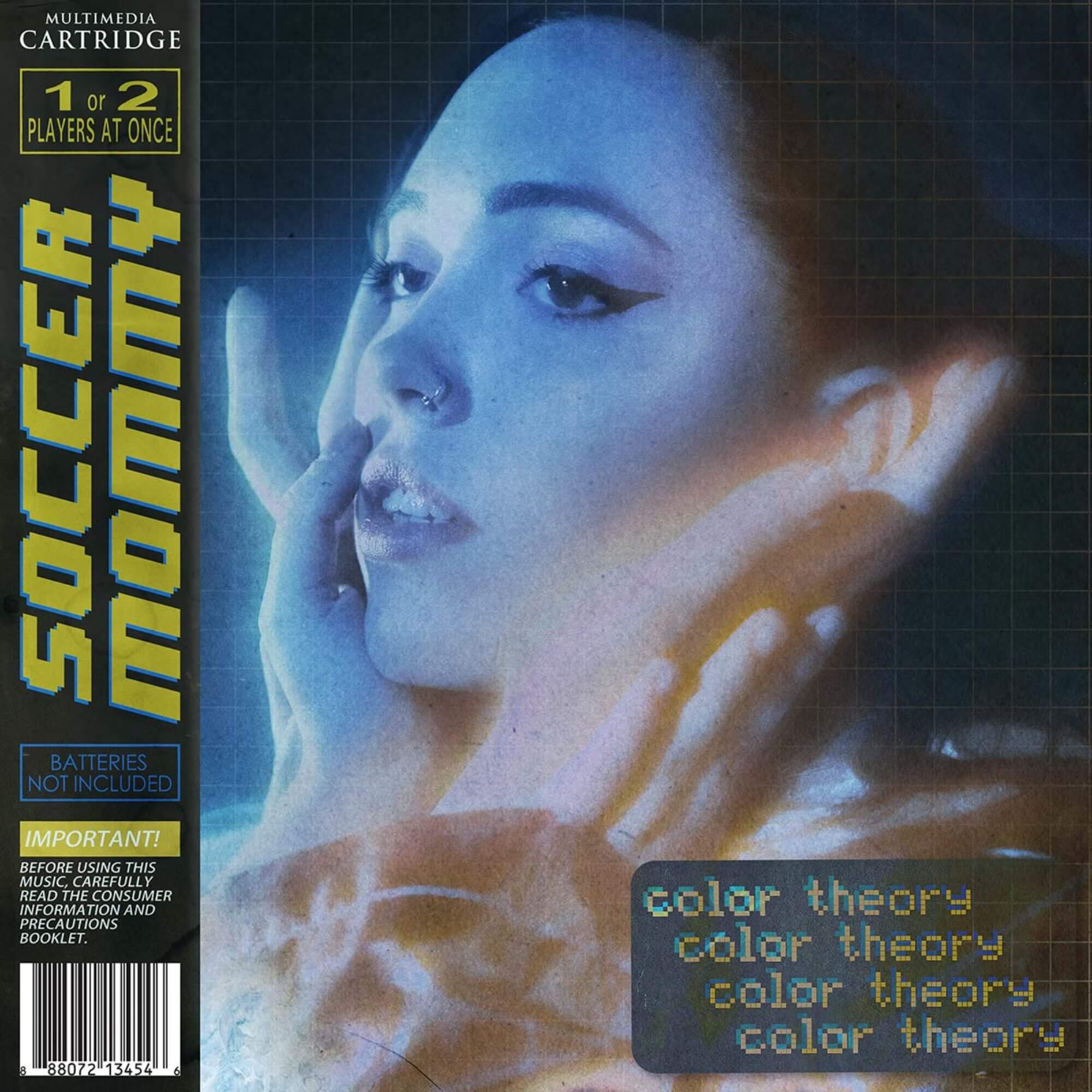
Color Theory Font
Fonts in UseColor Theory is the second studio album by the American indie rock musician Soccer Mommy, released in 2020. The album is a concept record that explores themes of depression, anxiety, and loss through a color-coded structure.
The album title "Color theory" which is shown in a repetitive manner is likely produced utilizing FontFont's Screen Matrix. Meanwhile, the artist's name is presented in a pixeled font called 8 Bit Wonder designed by Joiro Hatgaya, which is available for free download here at FontGet.